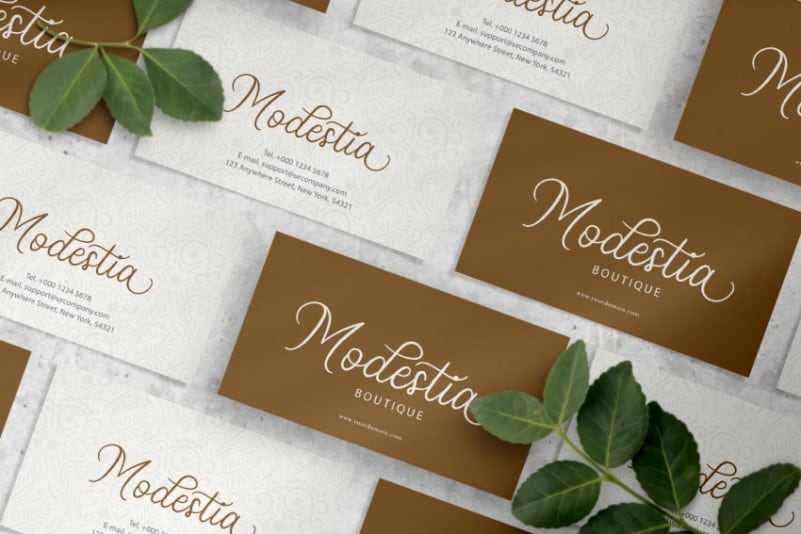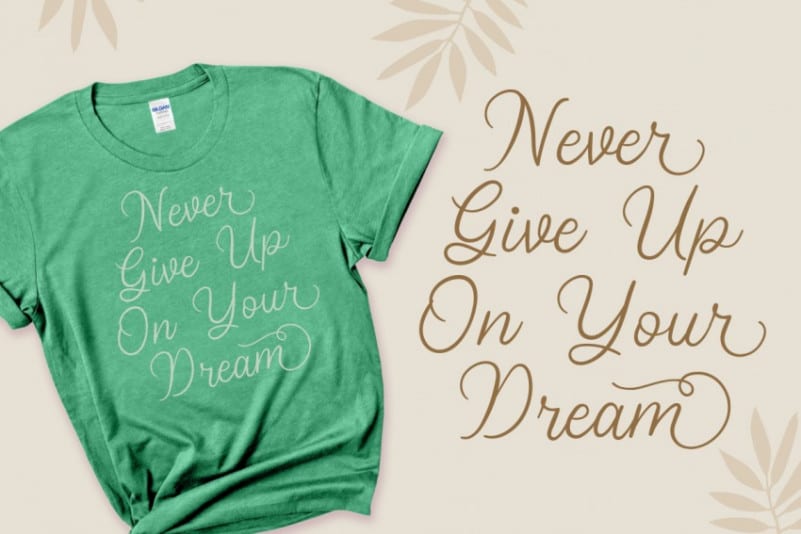
Stellina Calligraphy Font
Stellina Calligraphy Font is beautiful, a well designed for pretty girls. It’s designed and shared by Stellina. This Font with elegant and classy looks. This font will be suitable for projects such as branding design projects, logo, wedding designs, social media posts, advertisements, product packaging, product designs, label, photography, watermark, invitation, stationery and any projects that need elegant and classy looks.